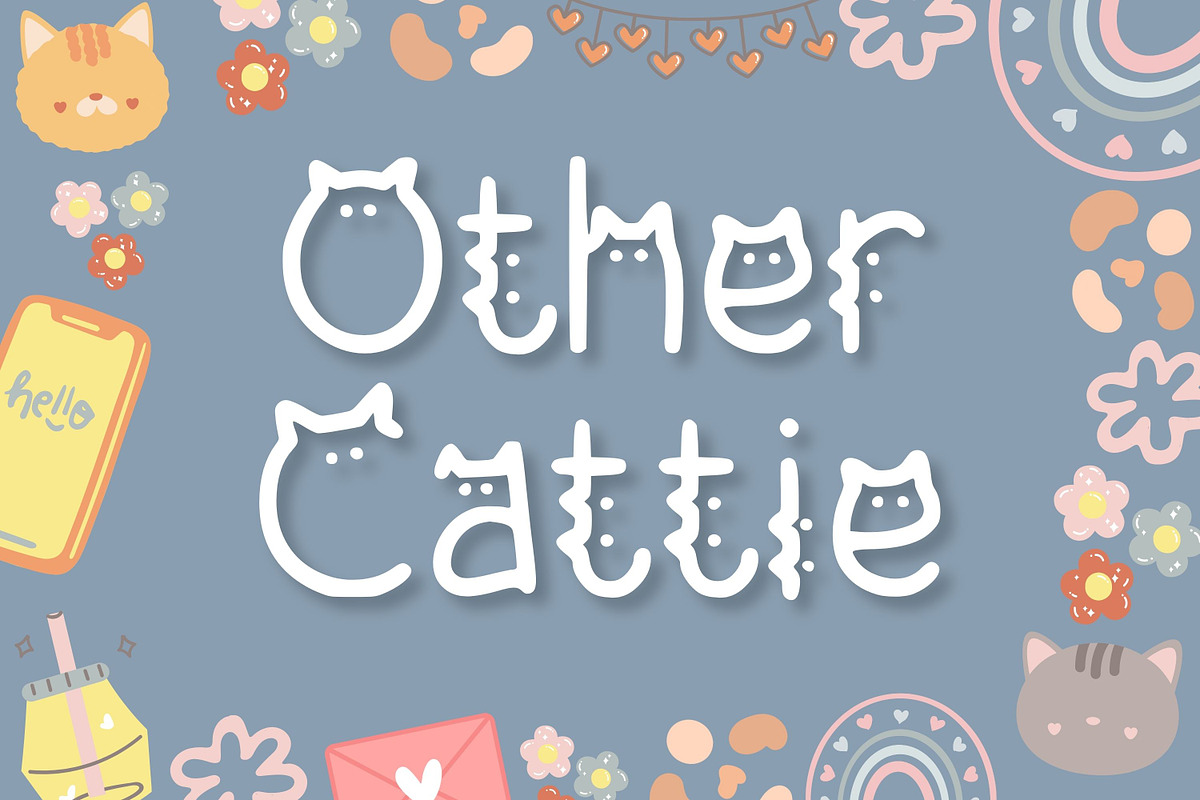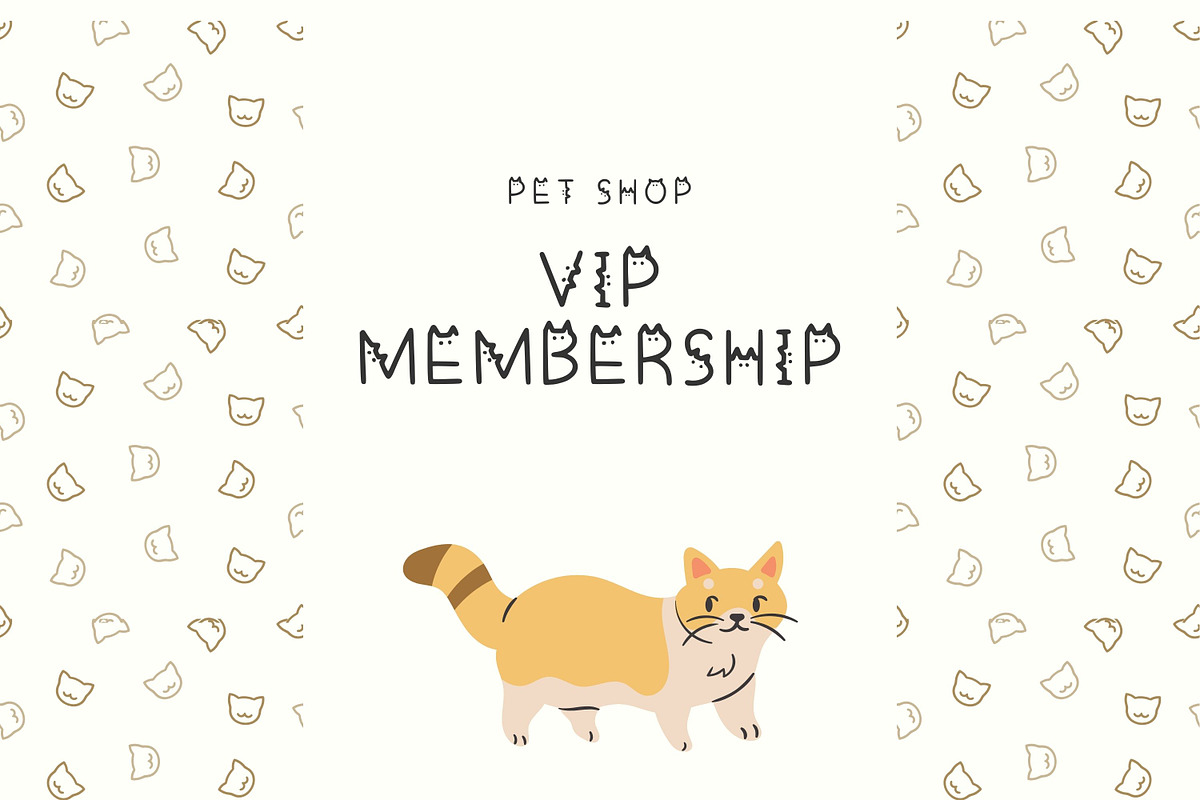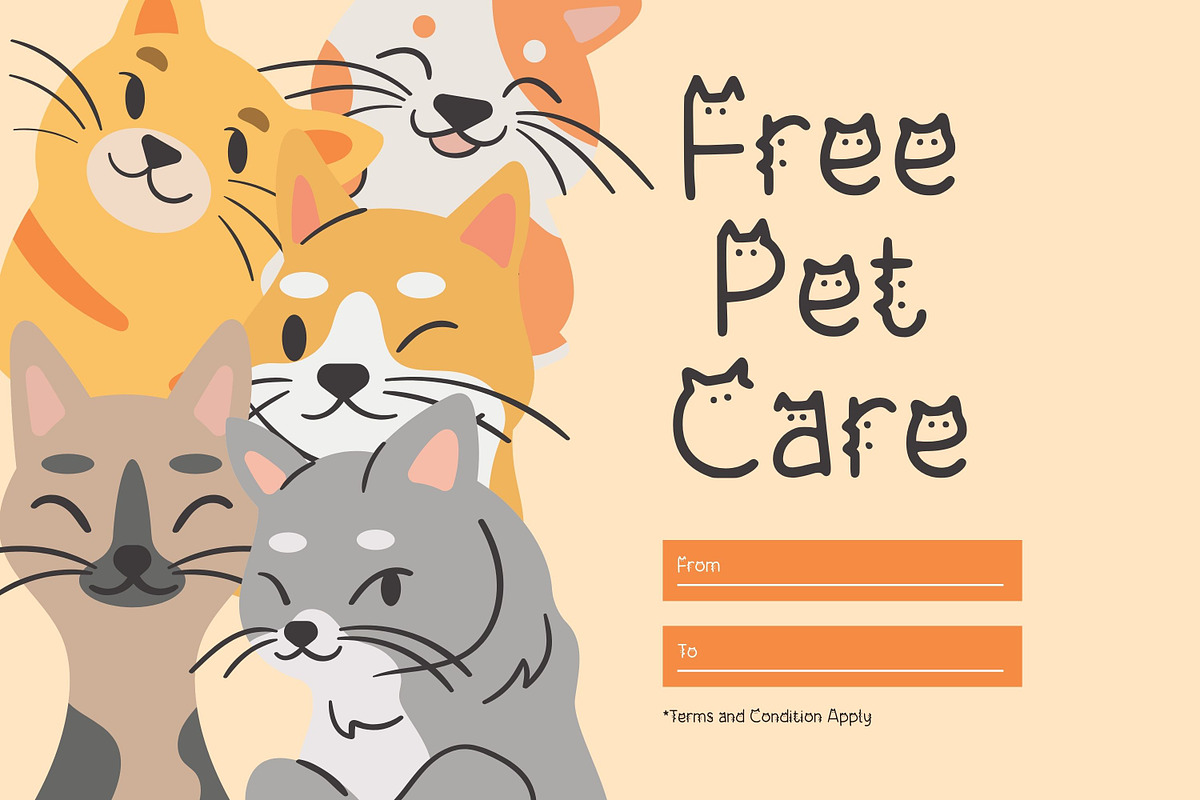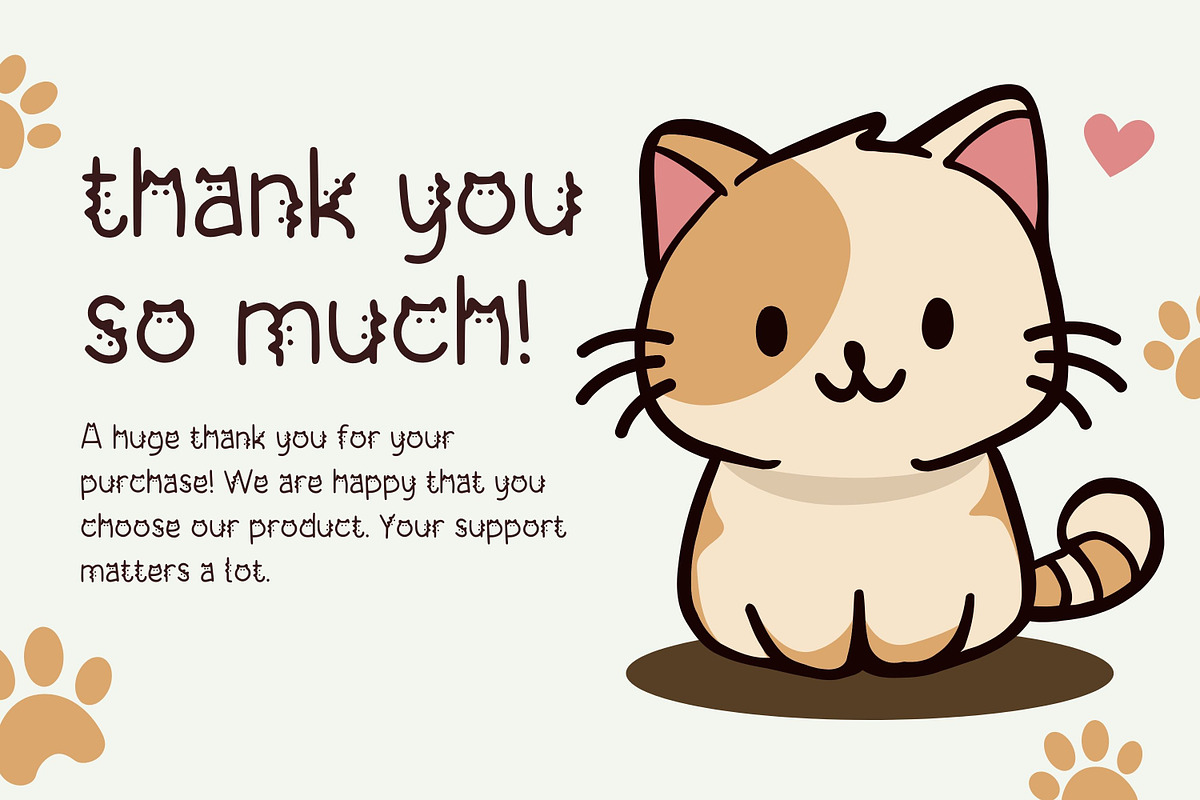
Other Cattie
Elevate your designs with the purr-fect blend of quirk and charm that only "Other Cattie" can provide. This distinct font carries the whimsical aura of our beloved feline companions, making it an ideal pick for any imaginative and artistic projects. "Other Cattie" breaks free from usual font offerings, artfully integrating cat silhouettes for a delightful and personal flair on a multitude of design landscapes. Discover the heartwarming charisma of "Other Cattie", where each keystroke resonates with a unique personality and visual appeal that truly stands out.